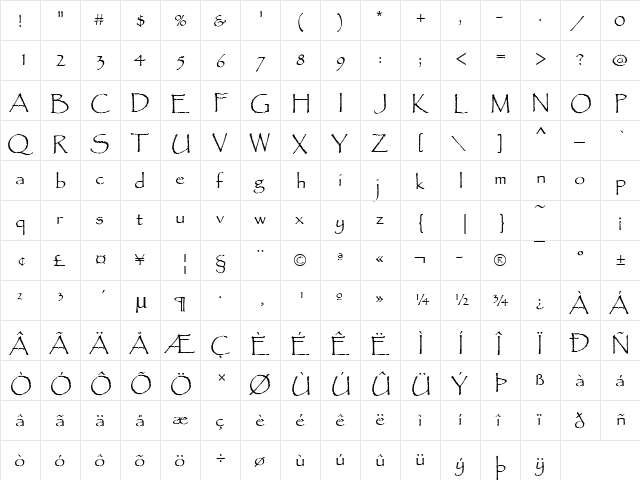
URWPallasT Regular
Design Context for URWPallasT Typeface
URWPallasT is a composed and adaptable typeface that performs quietly and consistently across a wide range of design contexts.